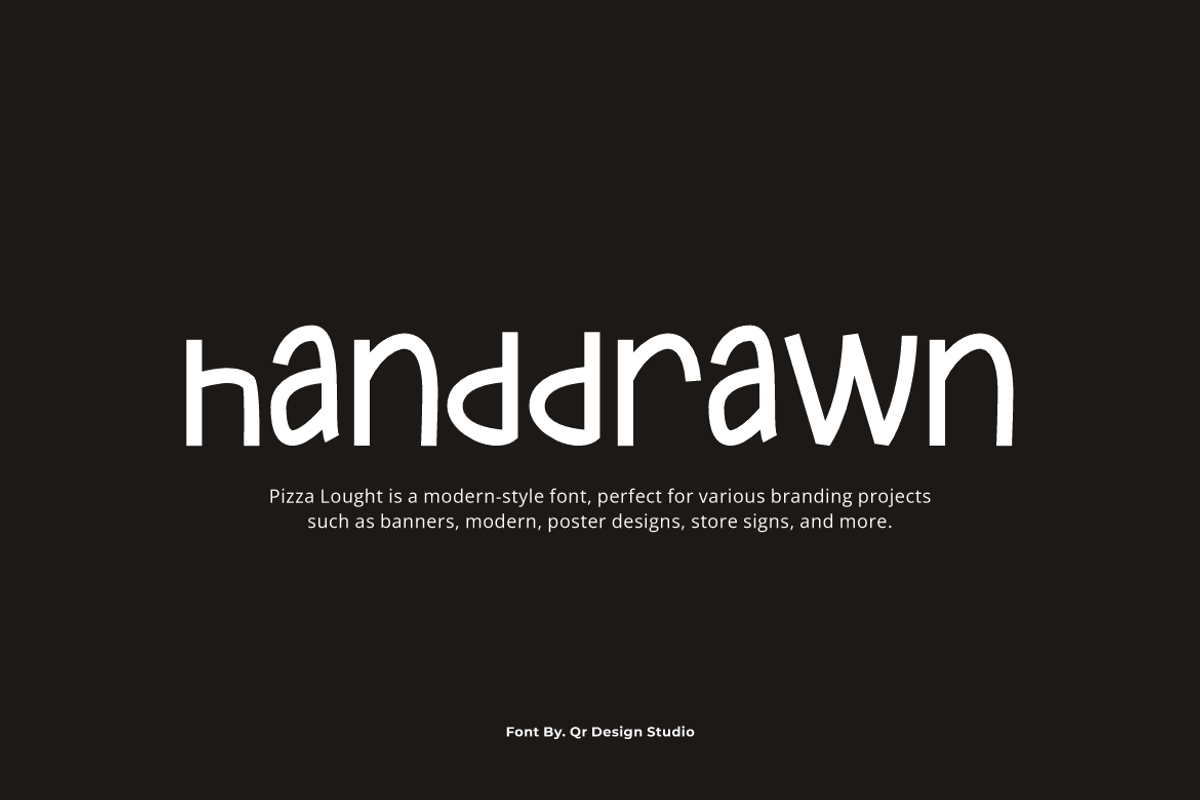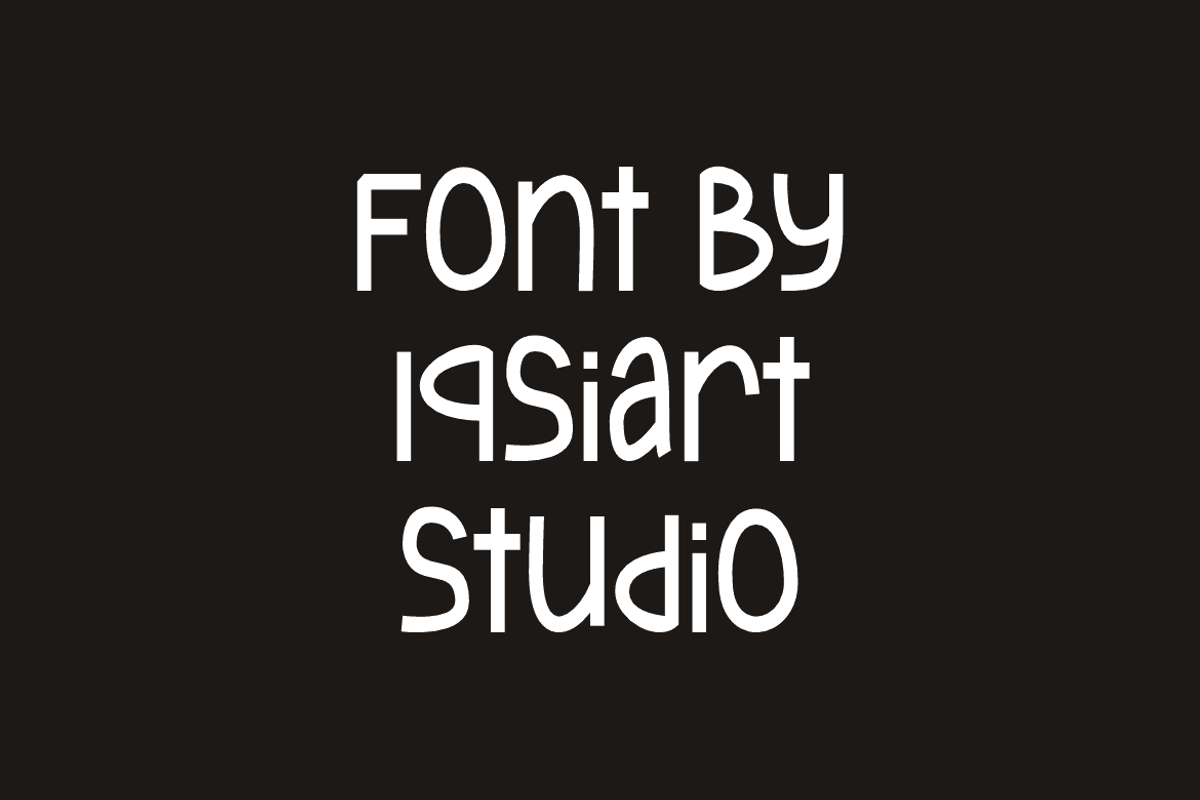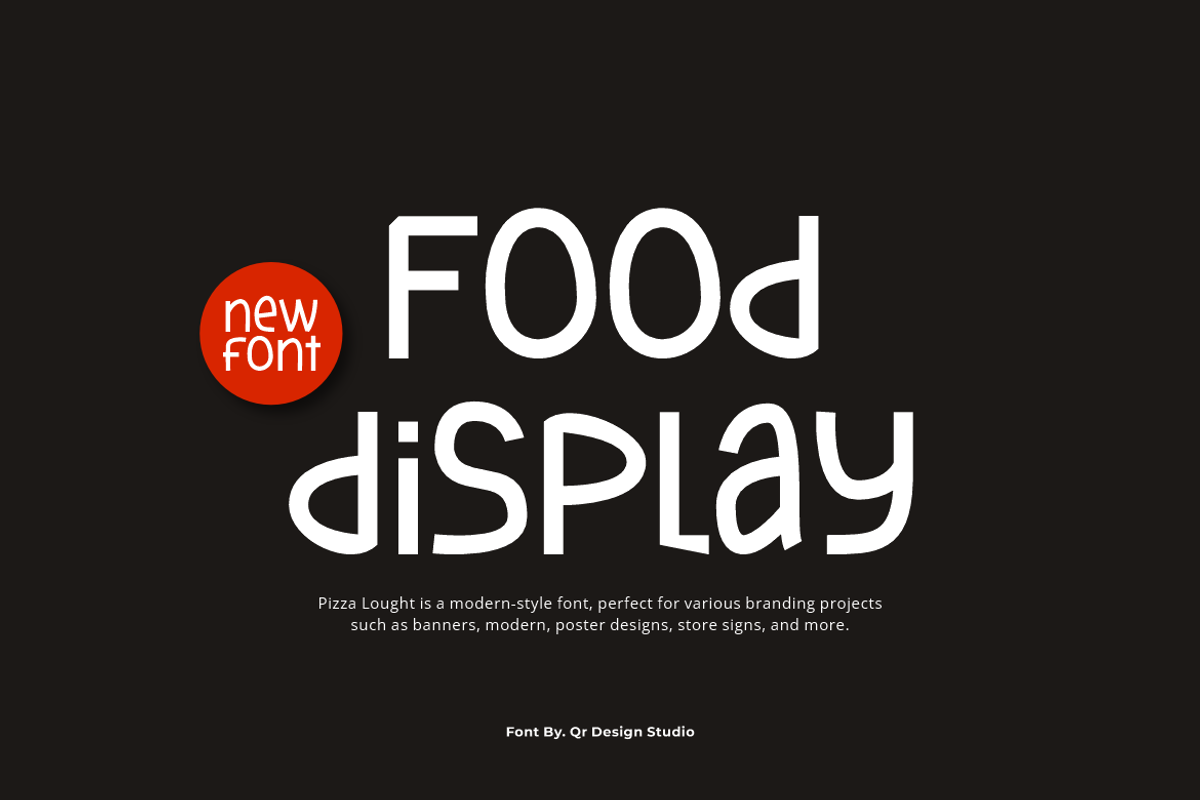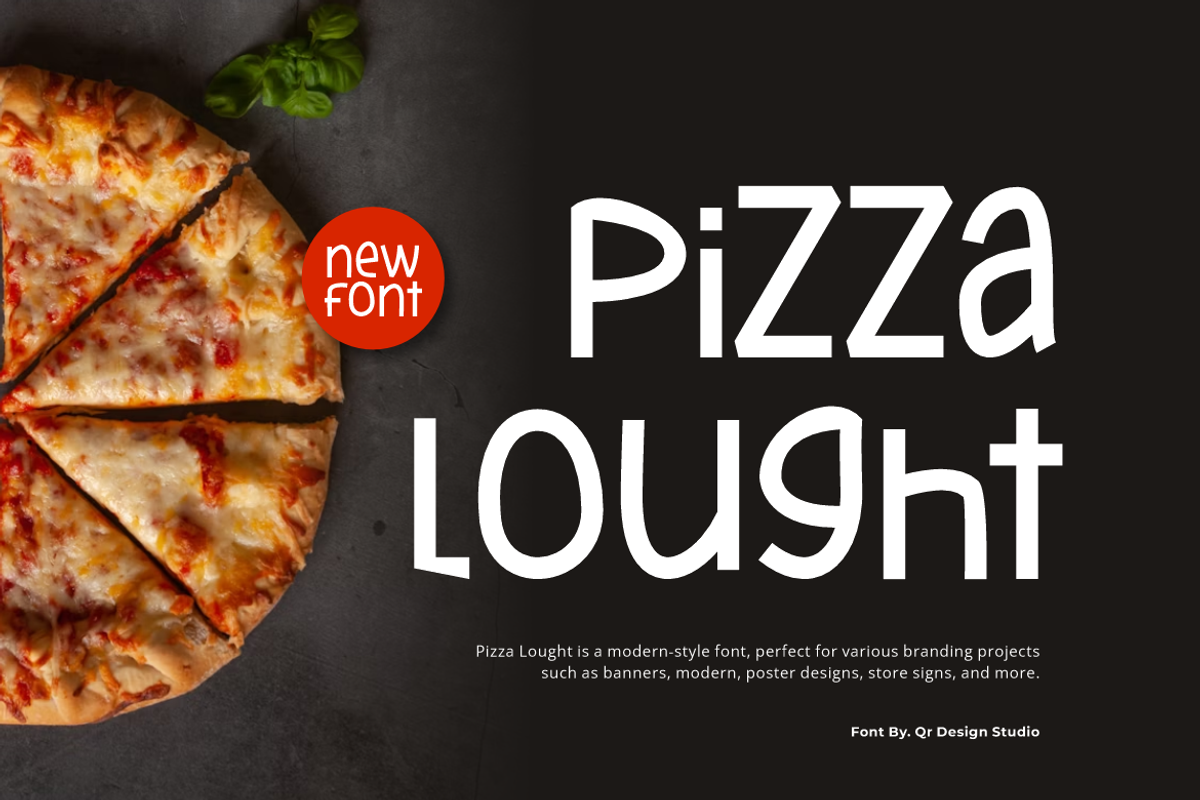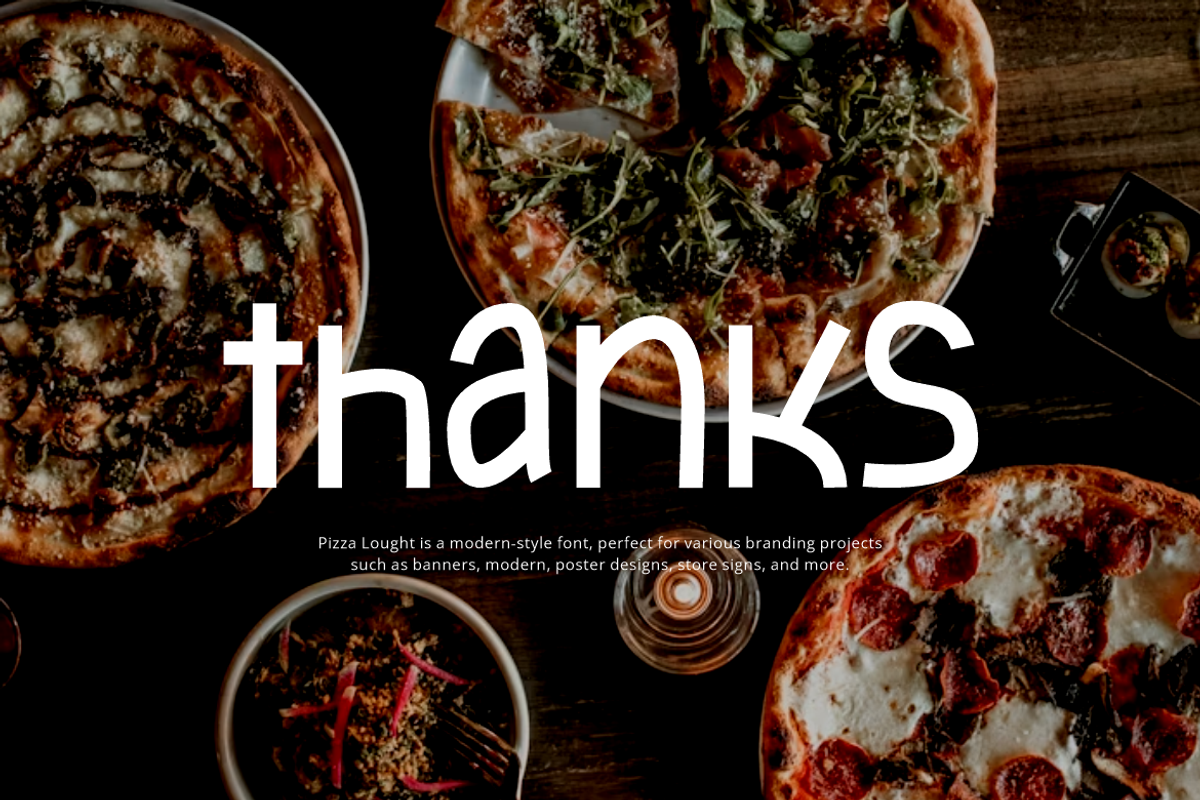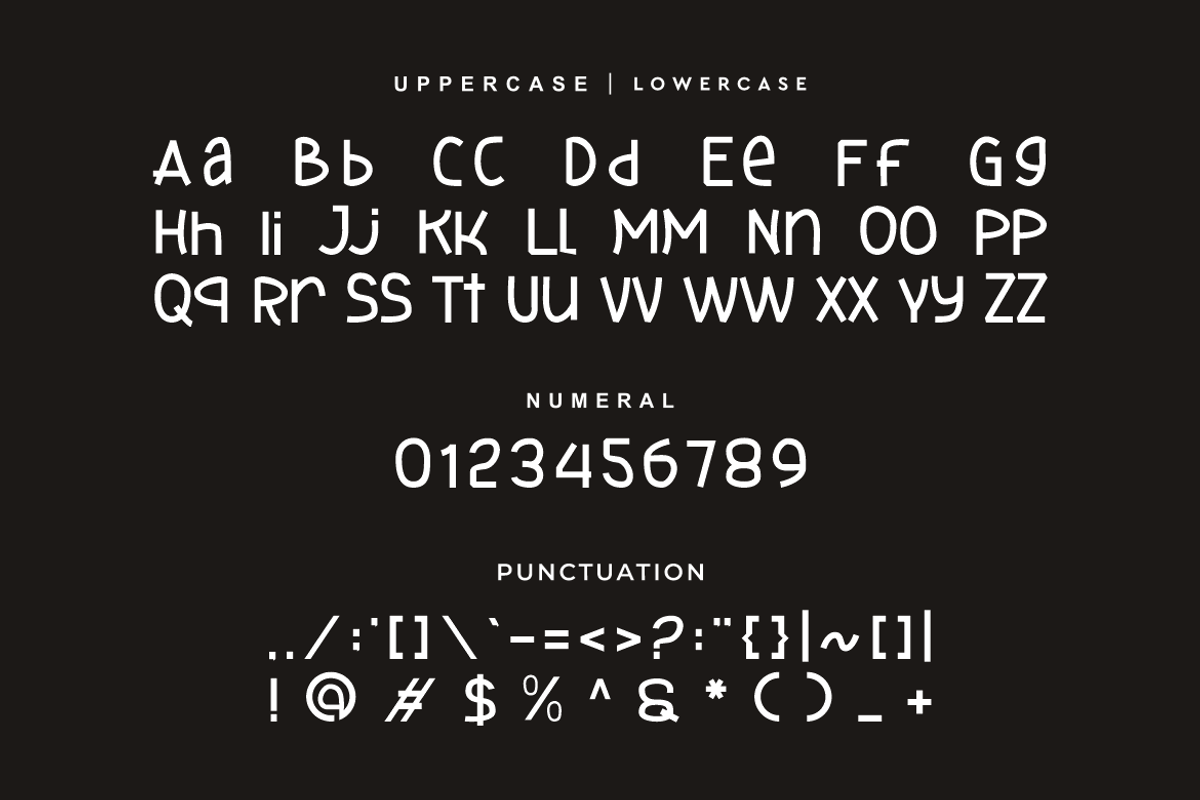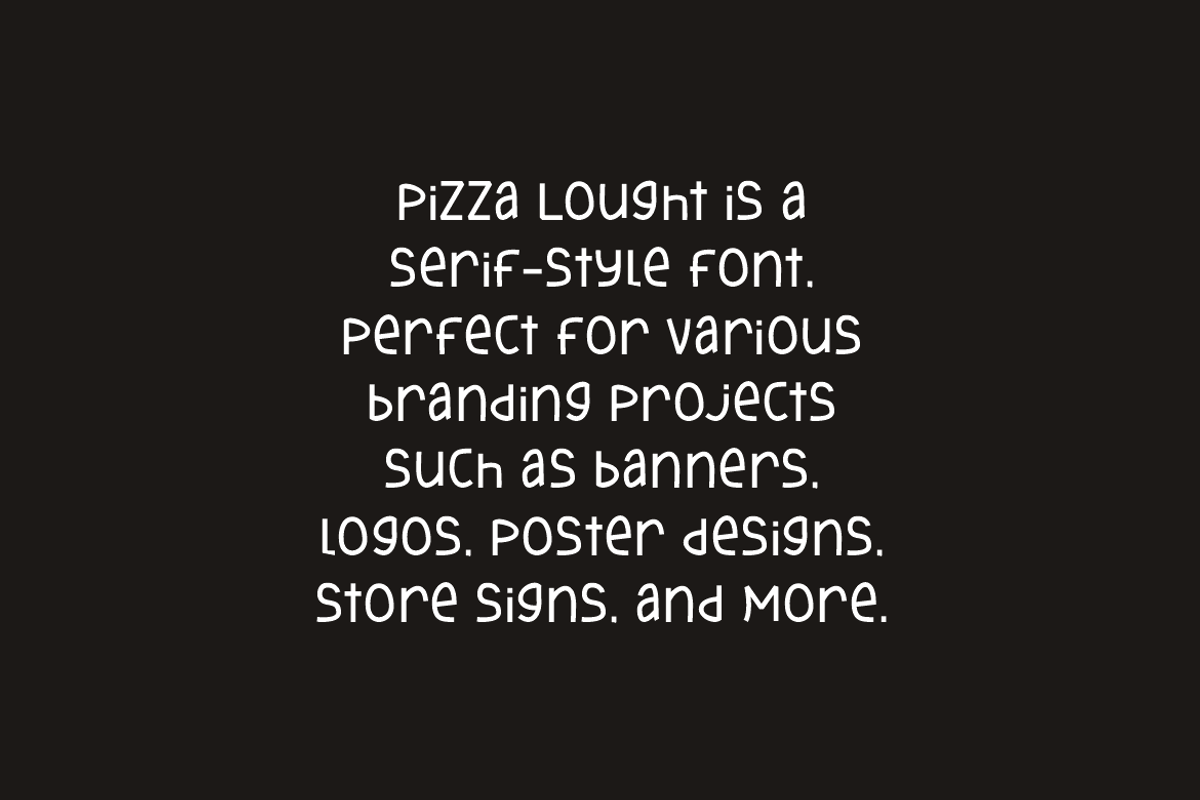
Pizza Lought - Food Font
Pizza Lought Font is a best and authentic display typeface that suits a variety of design needs. We offer a wide range of themes and font styles — visit our profile to explore more and find the perfect style for your project.